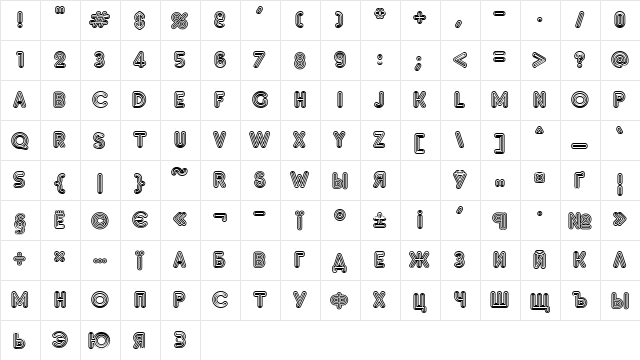
InsetF Extra Bold Font Preview
InsetF Extra Bold
InsetF Extra Bold Font Details
| Style | Extra Bold |
Design Context for InsetF Typeface
InsetF is a composed and adaptable typeface that performs quietly and consistently across a wide range of design contexts. The heavy weight commands attention and anchors typographic hierarchies.